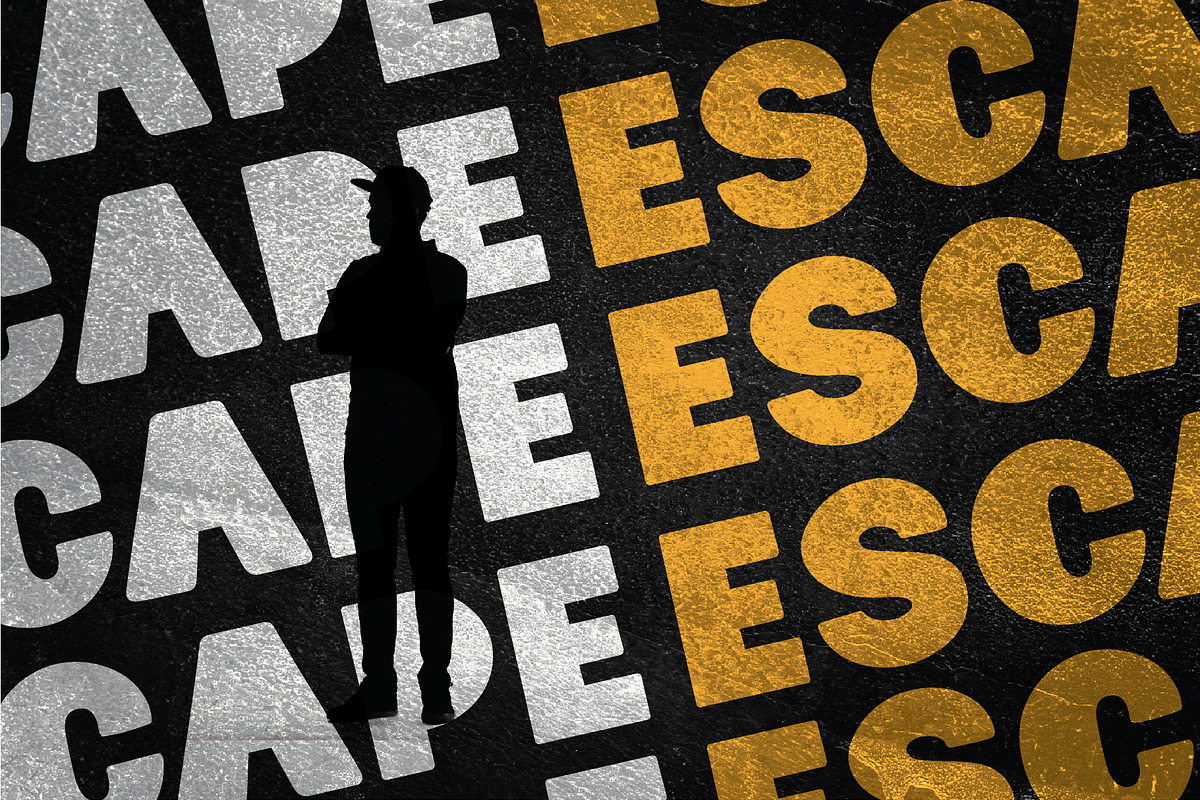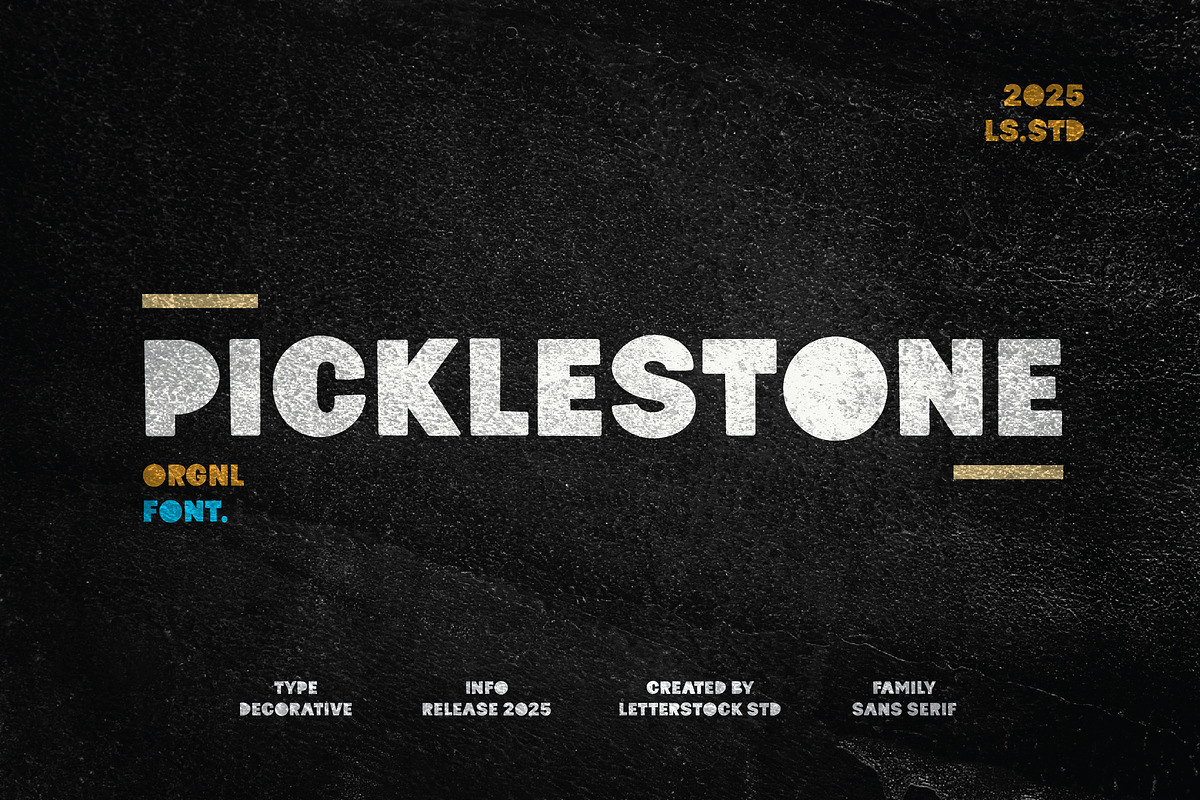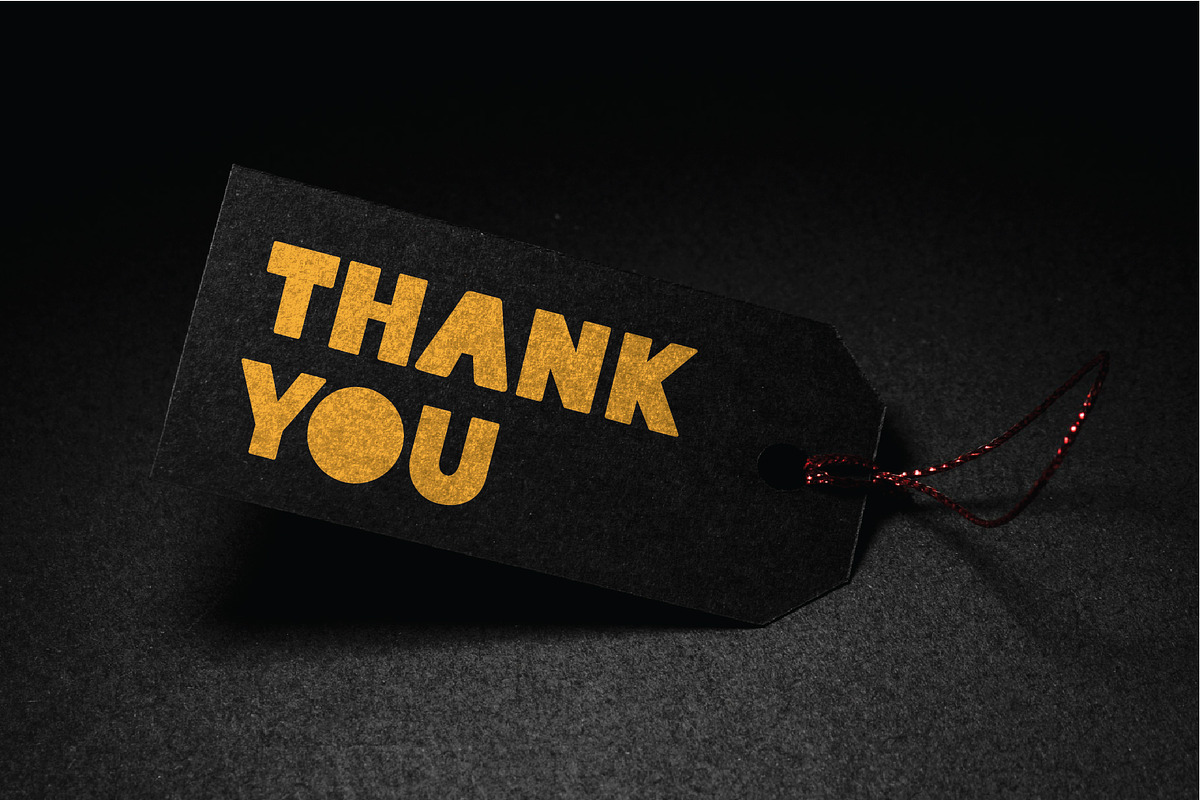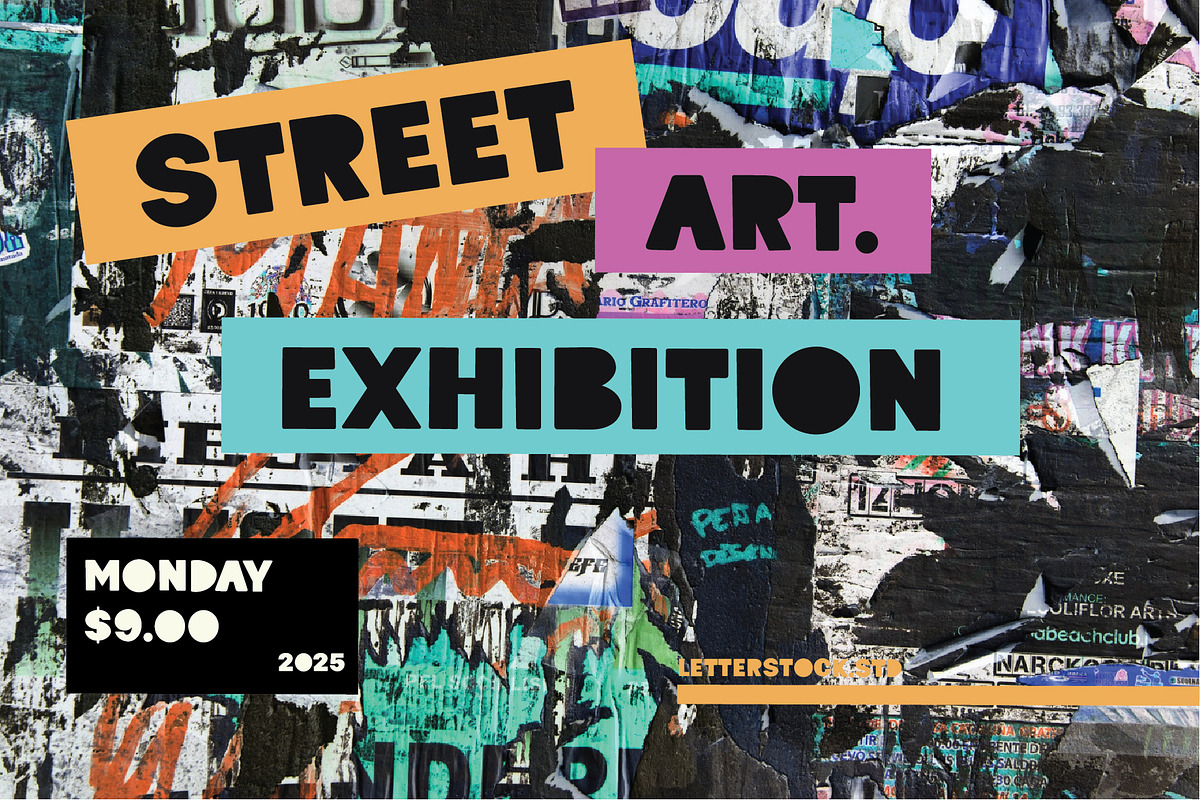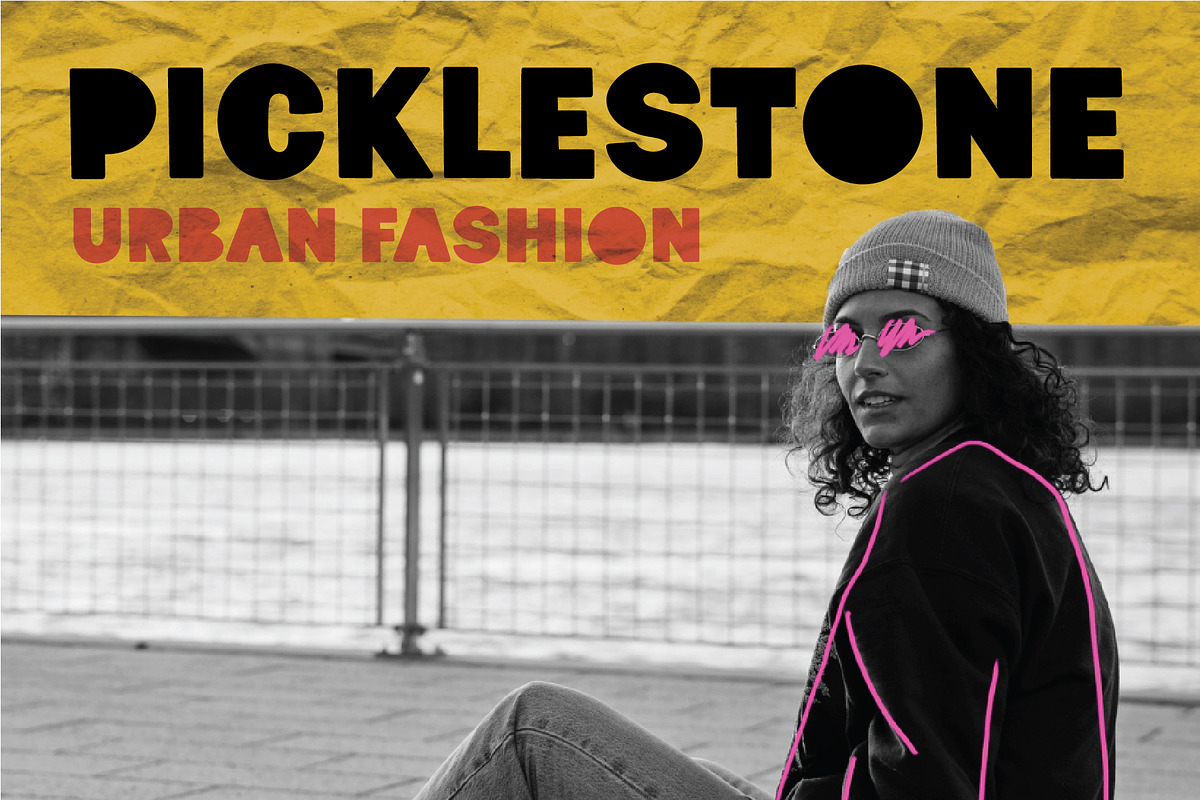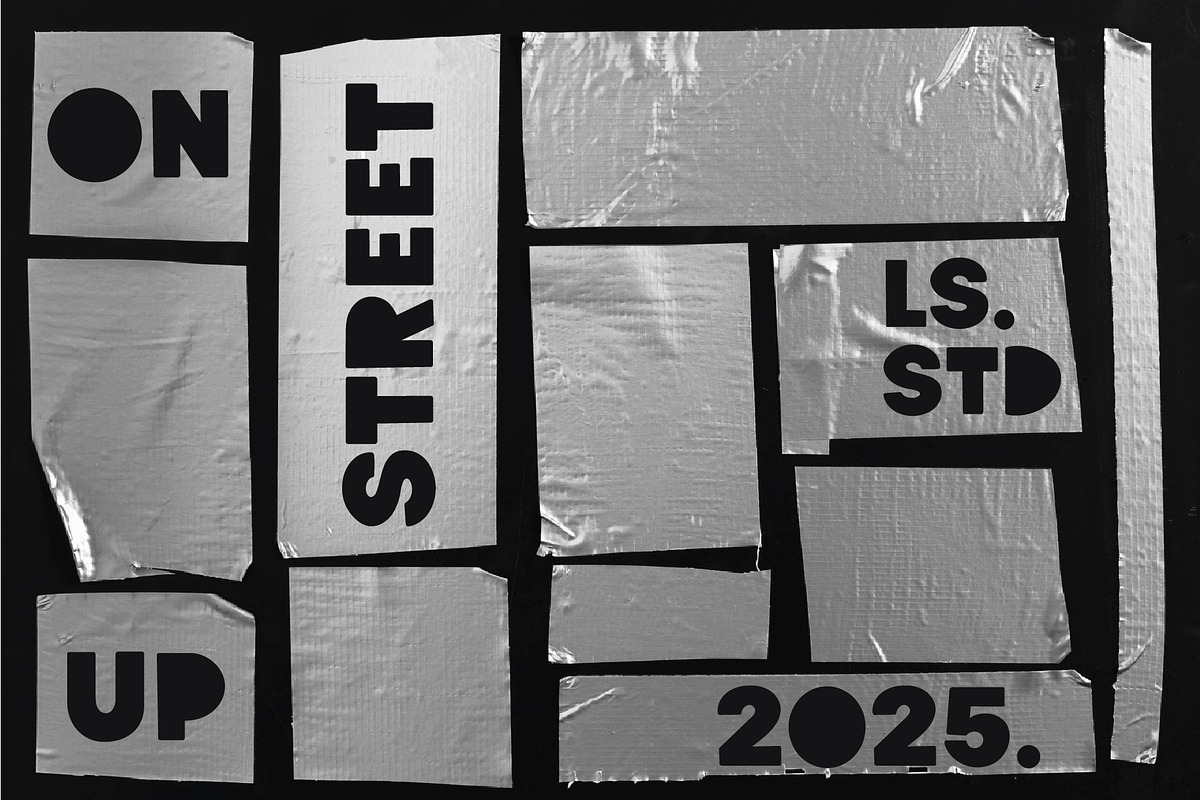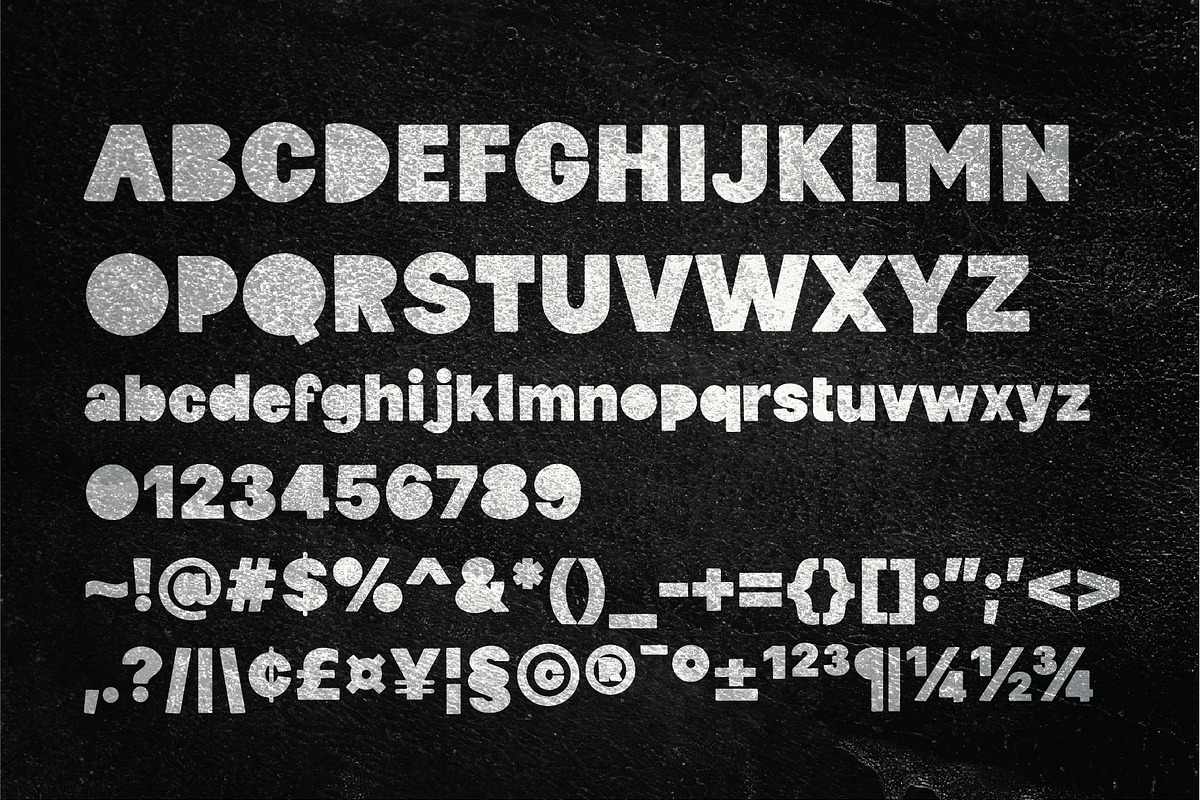
Picklestone
Picklestone is decorative sans font insprire by Urban street art.
Picklestone is a perfectly choice for any creative decorative design such as logos, advertisements, watermark on photography, stationery, branding project, display and magazine, invitation, corporate brand, product design, label, business project and many other project with creative playful touch.